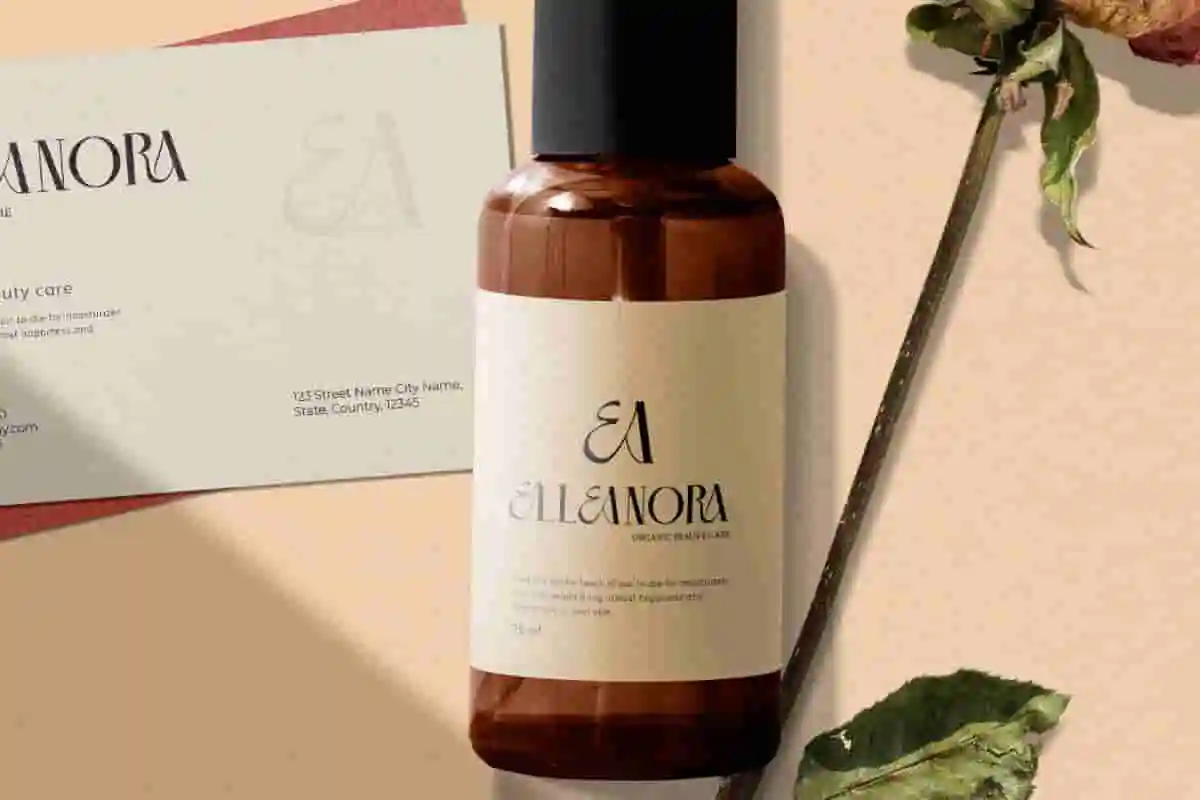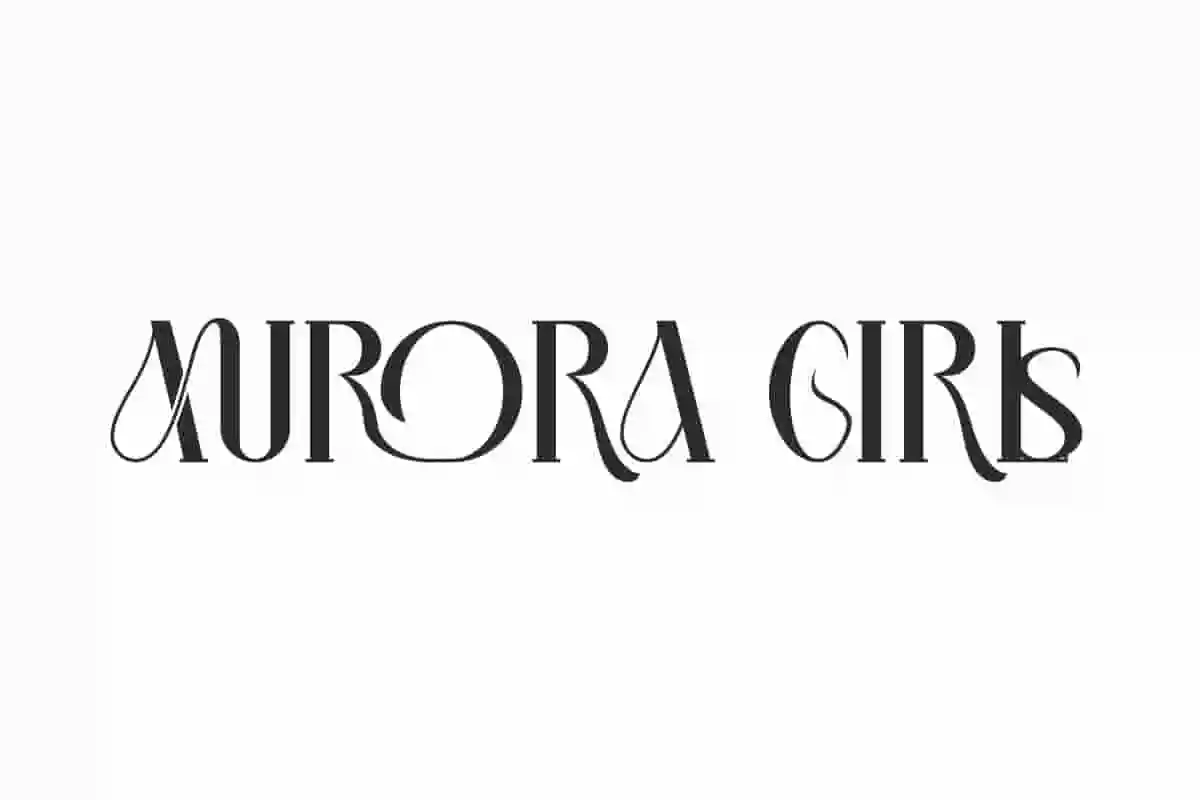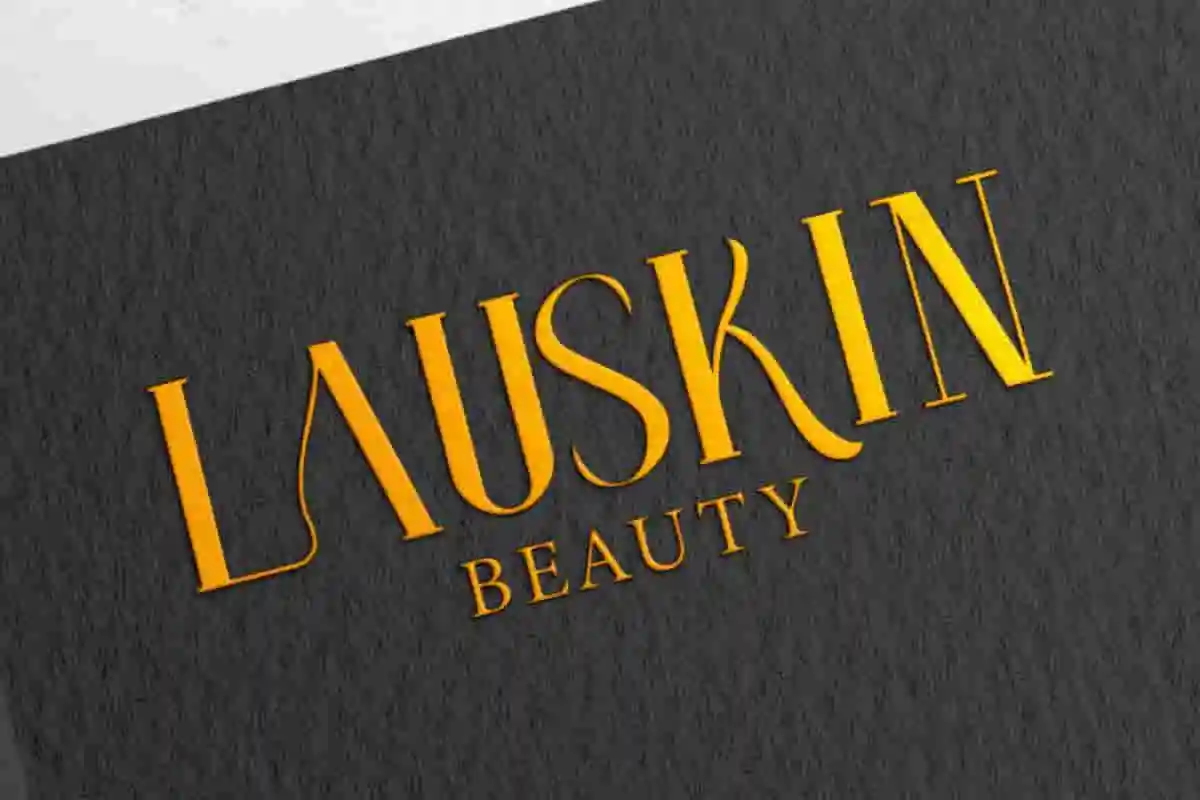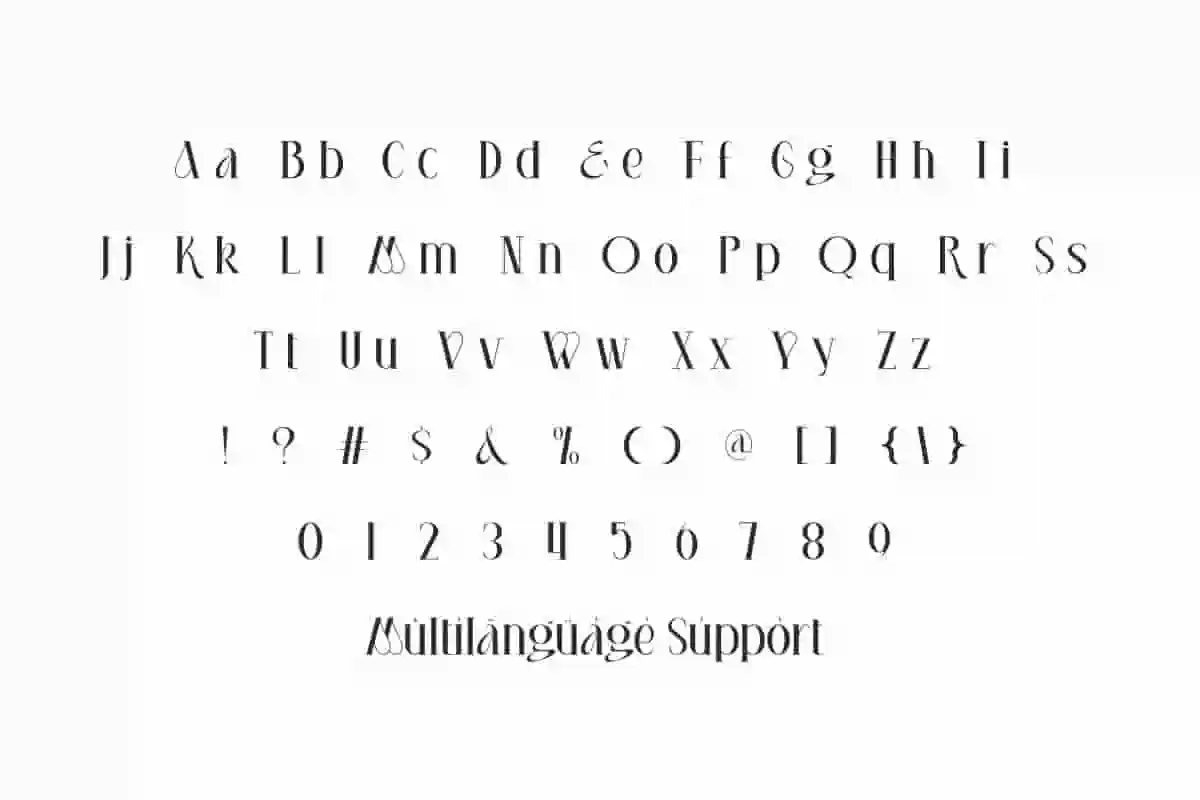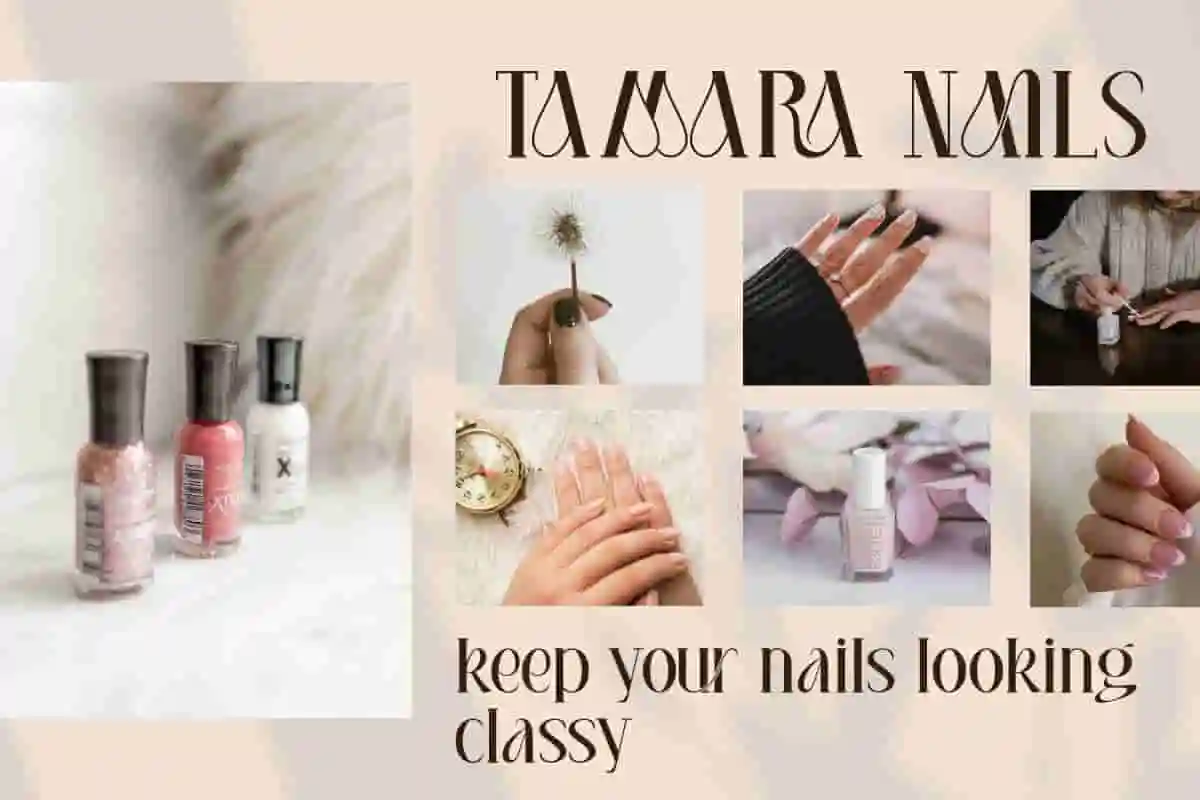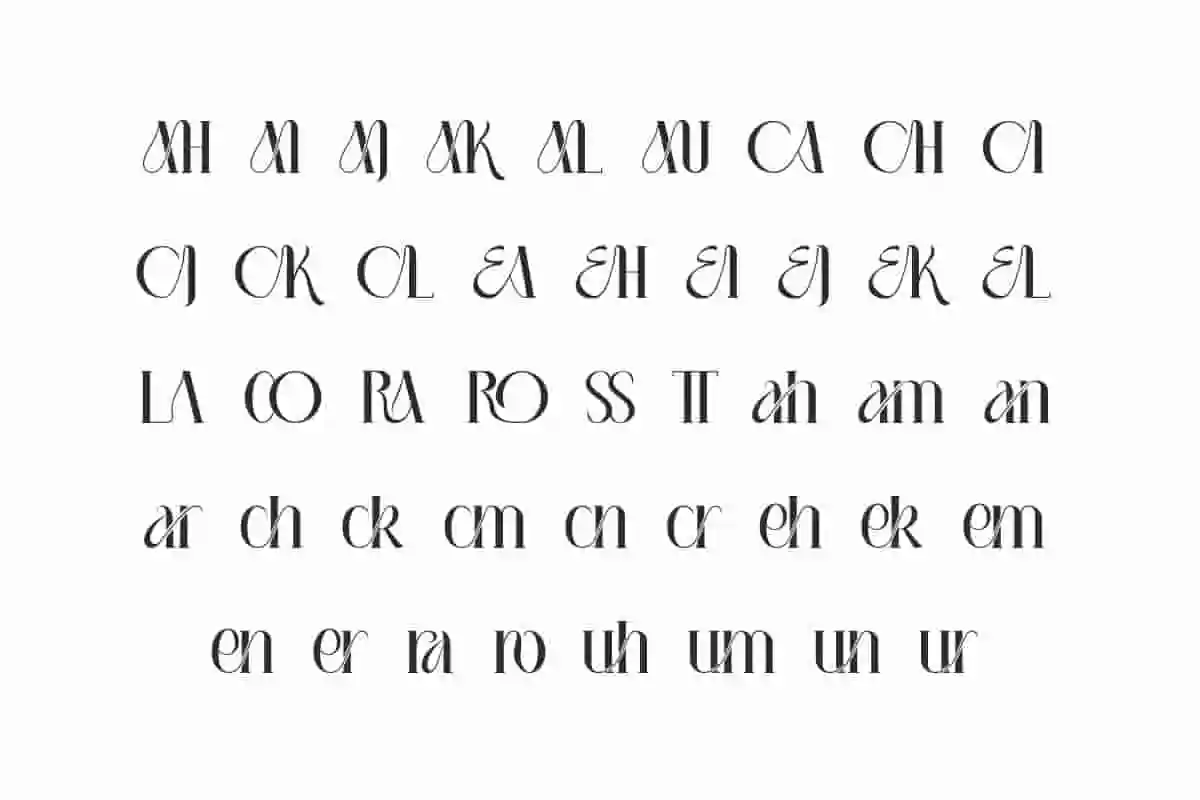
Aurora Girl Font is a gorgeous luxurious display font. It will be ready to make anything look absolutely beautiful including brand identity, social media templates, etc.
Aurora Girl Font is a gorgeous luxurious display font with awesome appeal. Its unique shape gives your business a different impression, such as accessories, architect, boutique, café, cosmetic, event organizer, fashion designer, film, fragrance maker, furniture, interior design, jewelry, photography, printing, publishing, real estate, restaurant, retail, skincare, social media content, spa salon, writer, etc.
Aurora Girl Font includes full set of Uppercase and Lowercase Basic Characters, Number, Punctuation, Symbol, and Ligature. These are elegant letters making your designs feel classy, such as apps, billboard, blogs, brand logo, brochure, cover, flyer, header, invitation, label, packaging design, poster, quote, screen print, signage, stationery, sticker, title, watermark, website, and more.